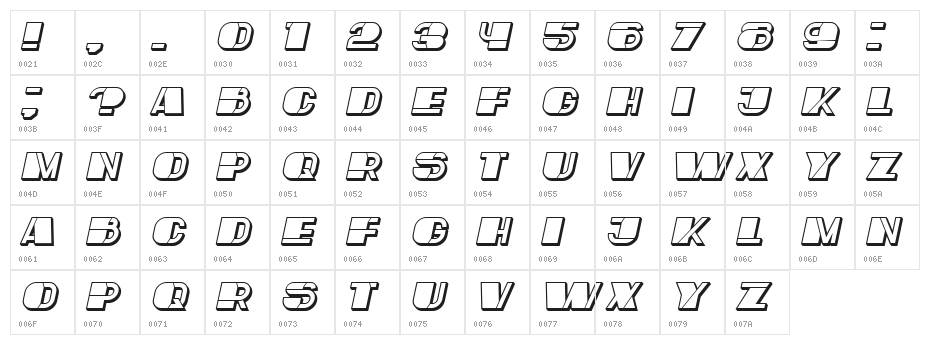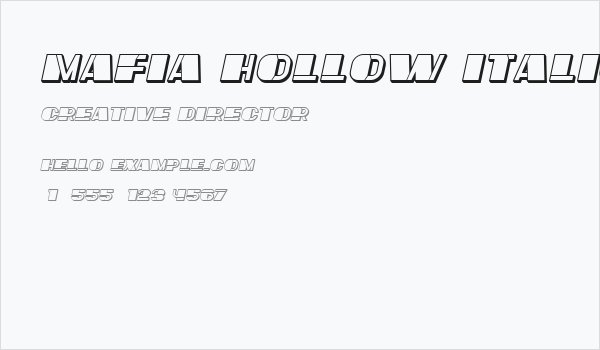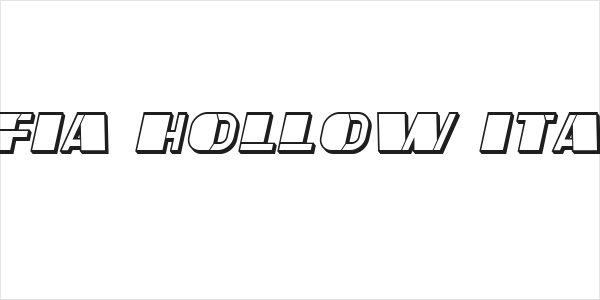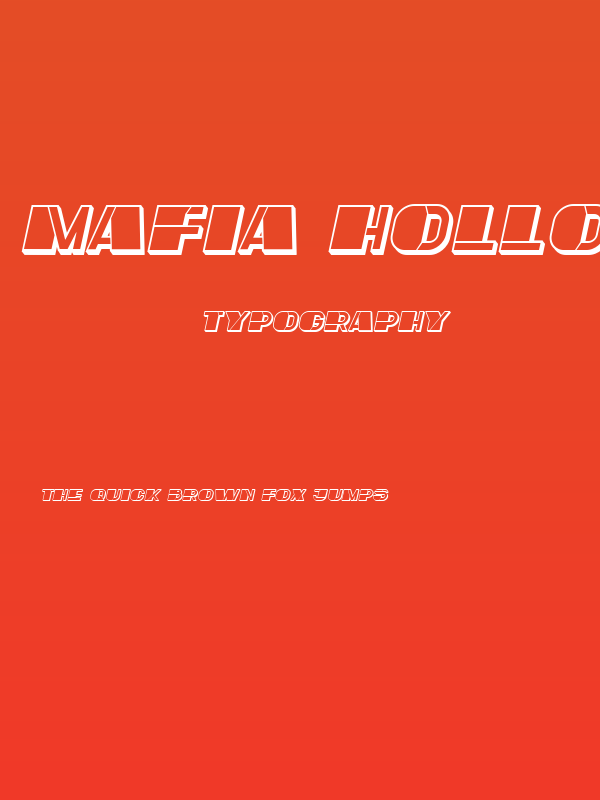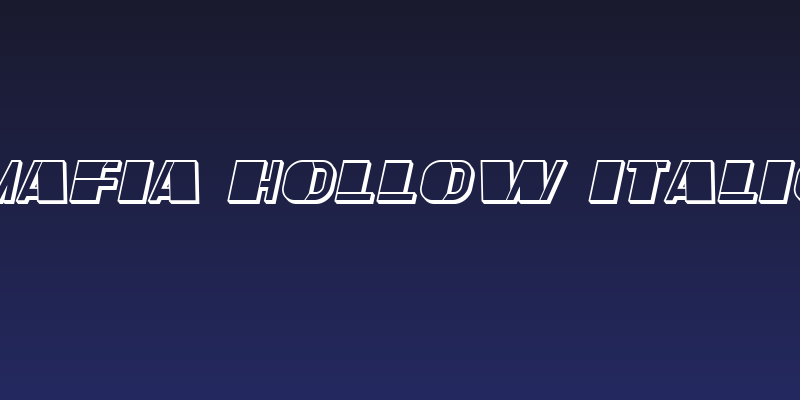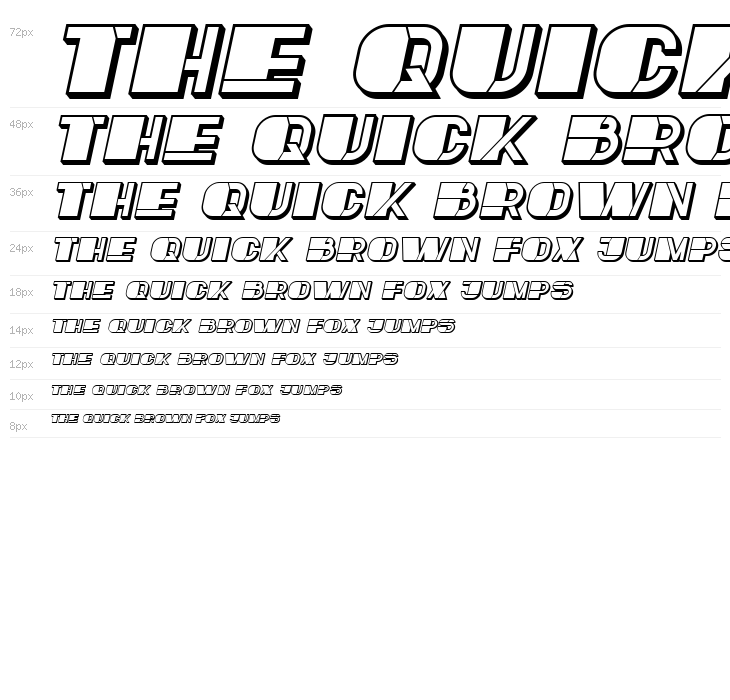
Mafia Hollow Italic Font
Mafia Hollow Italic Description
This font features a bold, hollow design with a distinct italic slant, giving it a dynamic and modern appearance. The characters are outlined with a thick stroke, creating a three-dimensional effect that stands out. The uppercase and lowercase letters maintain a consistent style, with sharp angles and clean lines. The numbers and special characters follow the same design principles, ensuring uniformity across all elements. This font's unique style makes it suitable for eye-catching designs where a strong visual impact is desired.
| Proposed Projects | Ideal for posters, logos, and headlines that require a bold and modern aesthetic. |